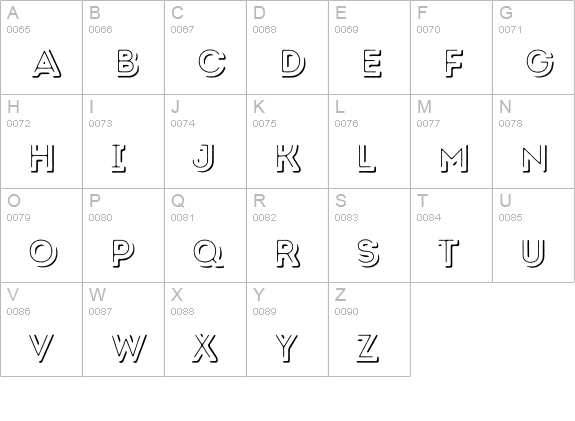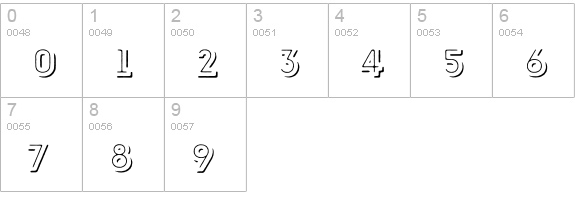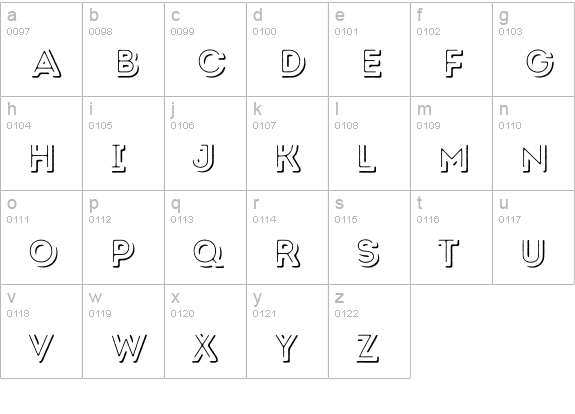
Intro Rust Line Shade Font Details
Intro Rust Line Shade font is a stunning display typeface that exudes a sense of modern elegance and sophistication. With its intricate lines and delicate shading, this font brings a unique touch to any design project. The free version of Intro Rust Line Shade is available to download at FontsMarket.com, allowing you to add a touch of style to your creations without any cost. Whether you're working on branding, packaging, posters, or any other creative project, this font is sure to make a statement and captivate your audience. Elevate your designs with the timeless beauty of Intro Rust Line Shade font today.